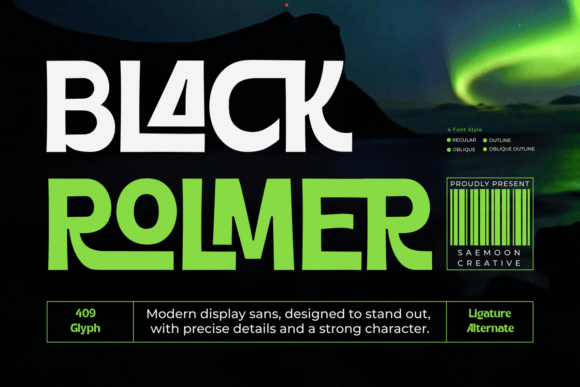
The Art of Making a Statement: Unlocking the Power of Black Rolmer Font
Have you ever stared at a blank page, trying to find the perfect font to bring your creative vision to life? That’s a feeling many designers know all too well. But what if I told you that the perfect font is just a click away? Enter Black Rolmer Font, a game-changing display sans-serif font designed to leave a lasting impression.
With its bold character and clean lines, Black Rolmer Font is the perfect tool for making a statement. Whether you’re designing a logo, creating a marketing campaign, or simply adding some flair to your next project, this font is sure to deliver. What sets Black Rolmer Font apart is its extensive selection of ligatures, offering a unique blend of creativity and functionality that’s sure to elevate your designs.
Black Rolmer Font Key Features
- Unique Characteristic: Distinctive, bold, and modern sans-serif design
Designer Review: Black Rolmer Font
Overall, I’m quite impressed with the Black Rolmer Font. It’s a clean and modern sans-serif font that’s perfect for creating a sleek and sophisticated look. ✨
- Black Rolmer Font has excellent legibility, making it perfect for body text.
- The font’s sleek and modern design makes it ideal for use in corporate branding and marketing materials.
- The font’s wide range of weights and styles allows for a high degree of customization.
- It’s also highly versatile and can be used in a variety of contexts, from digital interfaces to print materials.
However, there are a few limitations to consider. ✨
- The font may not be suitable for use in certain contexts where a more traditional or serif font is desired.
- The font’s minimalist design may not be as effective for use in headlines or titles, where a more dramatic or attention-grabbing font is needed.
- The font’s wide range of weights and styles can make it overwhelming to choose the right one for a particular project.
Overall, I’d give the Black Rolmer Font a solid 4 out of 5 stars. While it may have a few limitations, its versatility, legibility, and modern design make it a valuable addition to any designer’s toolkit.
To get the most out of the Black Rolmer Font, consider the following tips:
- Use it for titles and headings to create a bold and eye-catching effect.
- Combine it with other fonts to create a unique and interesting typography.
- Experiment with different font sizes and styles to create a visually appealing design.
The Black Rolmer Font is commonly used in:
- Logo designs and branding materials.
- Print materials such as business